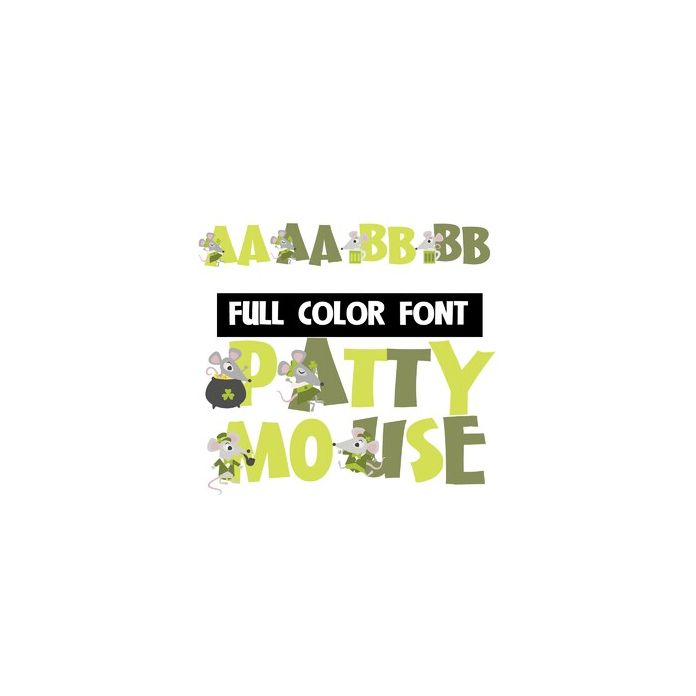
This full-color font features Irish mice on the uppercase and a lowercase without. There is a second upper and lower alt case you can access through your system's character map.